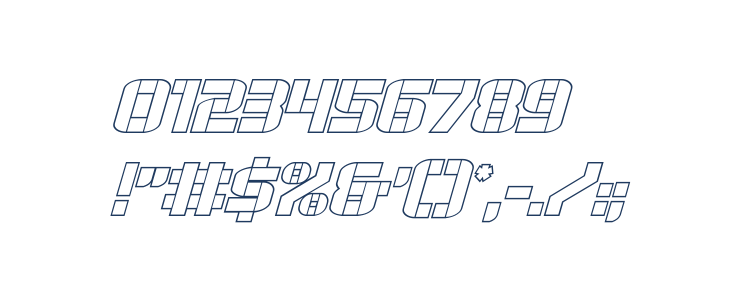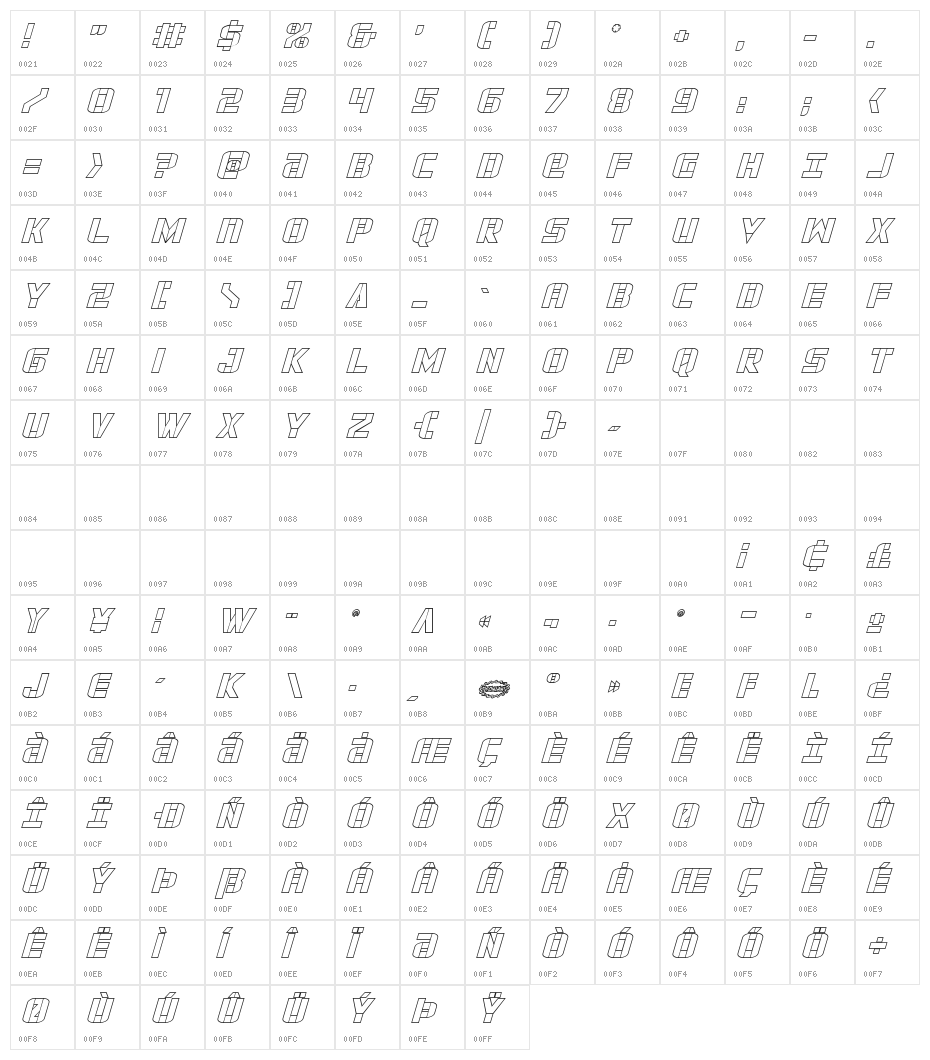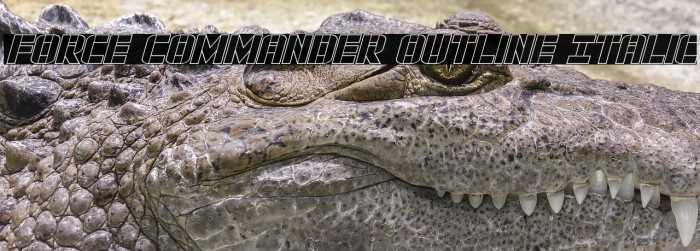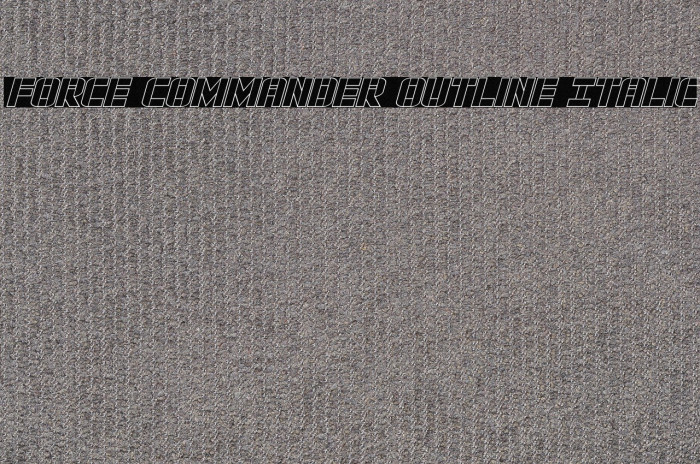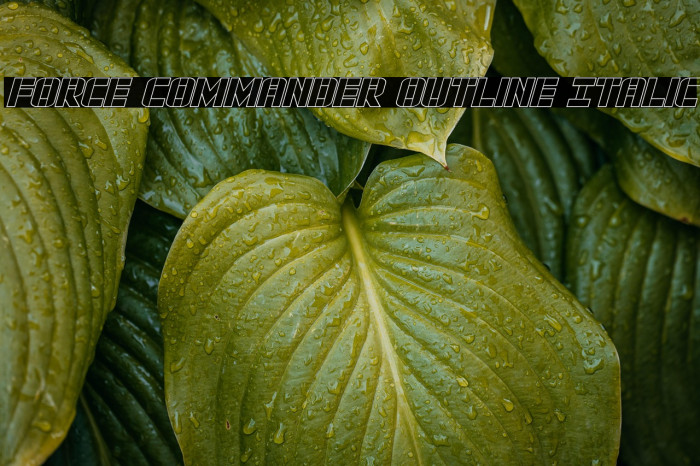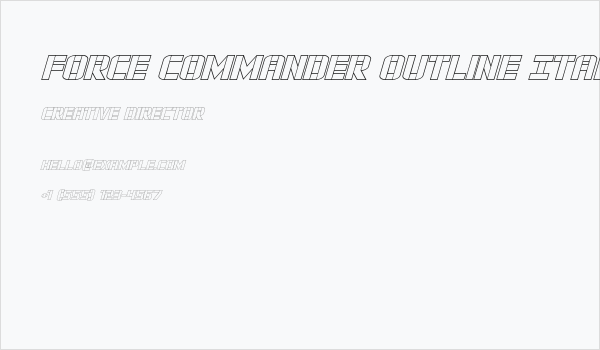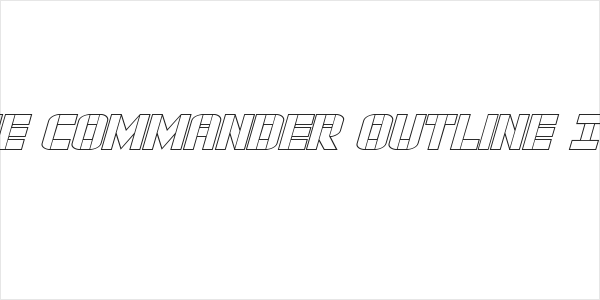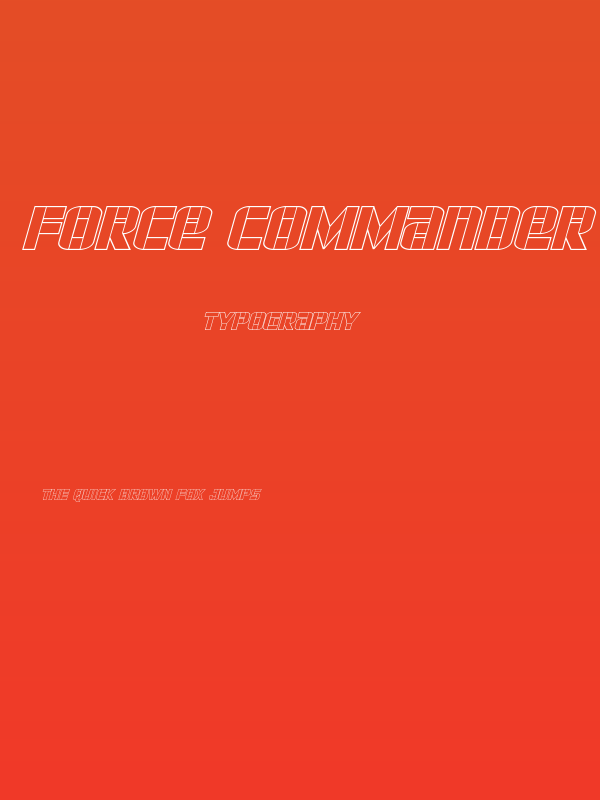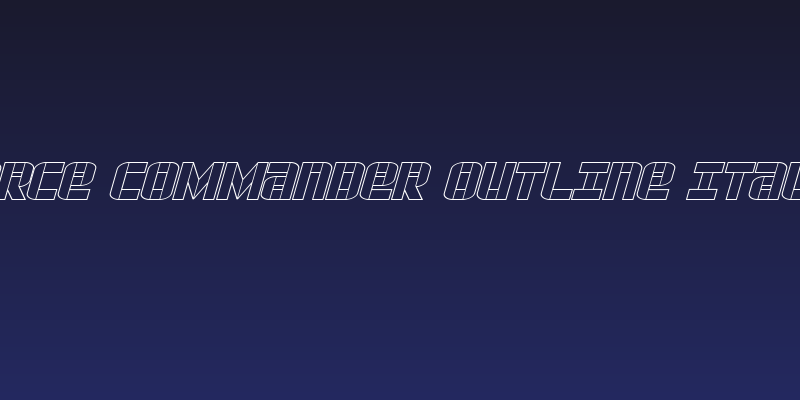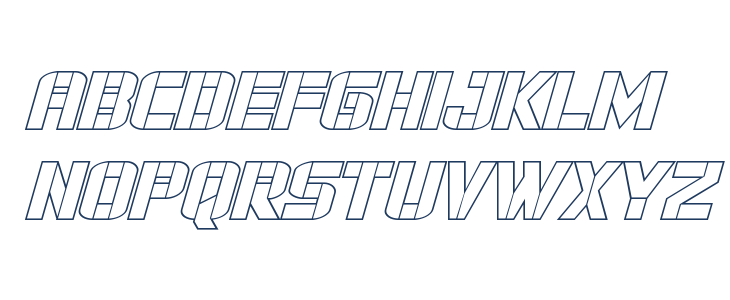
Force Commander Outline Italic Font
Force Commander Outline Italic Description
This font features a bold, geometric outline style with an italic slant, giving it a dynamic and futuristic appearance. The characters are constructed with clean, straight lines and sharp angles, creating a sense of movement and energy. The outline design adds a layer of complexity and depth, making it stand out in any design. Its uppercase and lowercase letters, along with numbers and special characters, maintain a consistent style, ensuring versatility across various applications. The font's unique structure is ideal for projects that require a modern and edgy look.